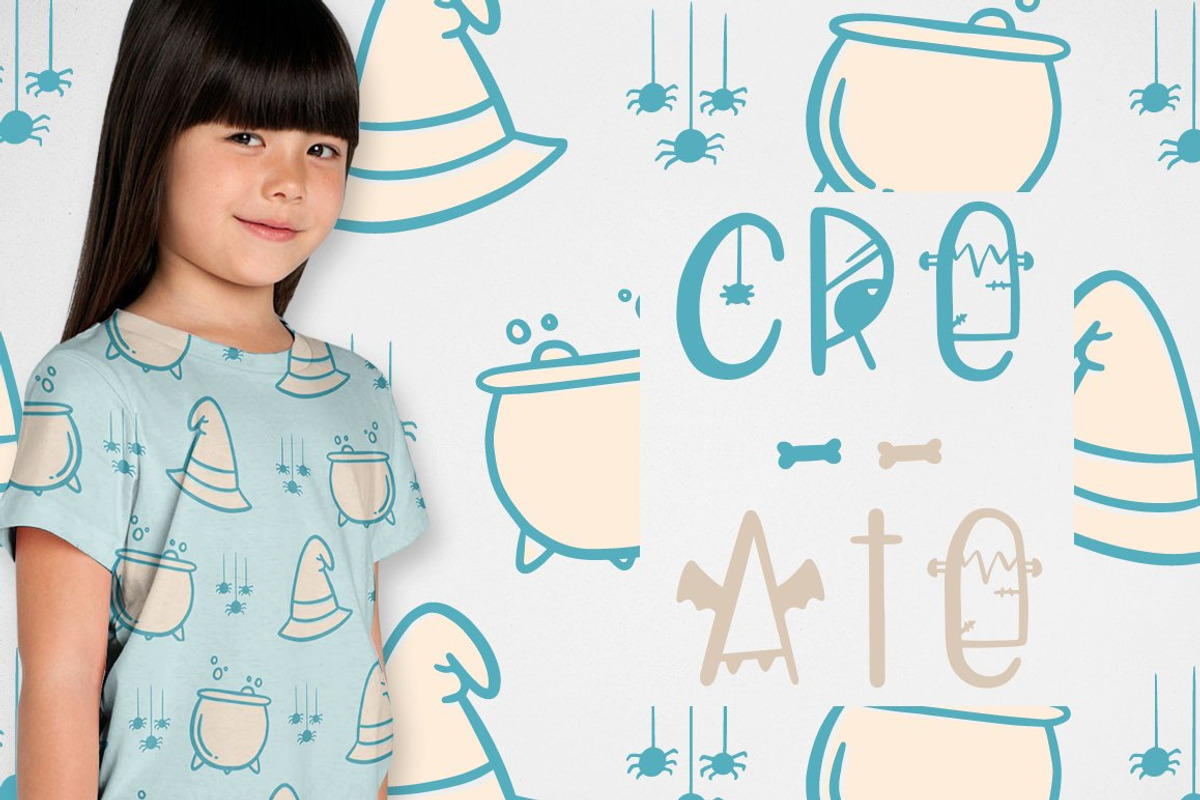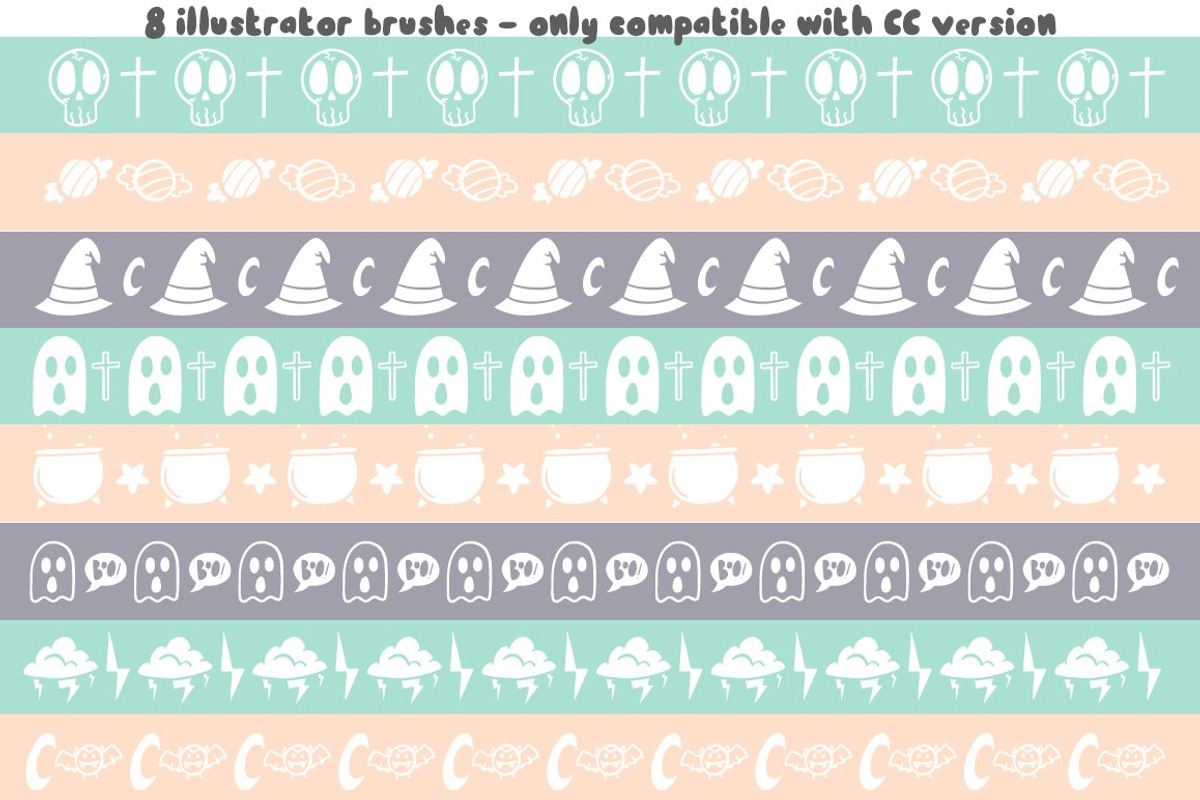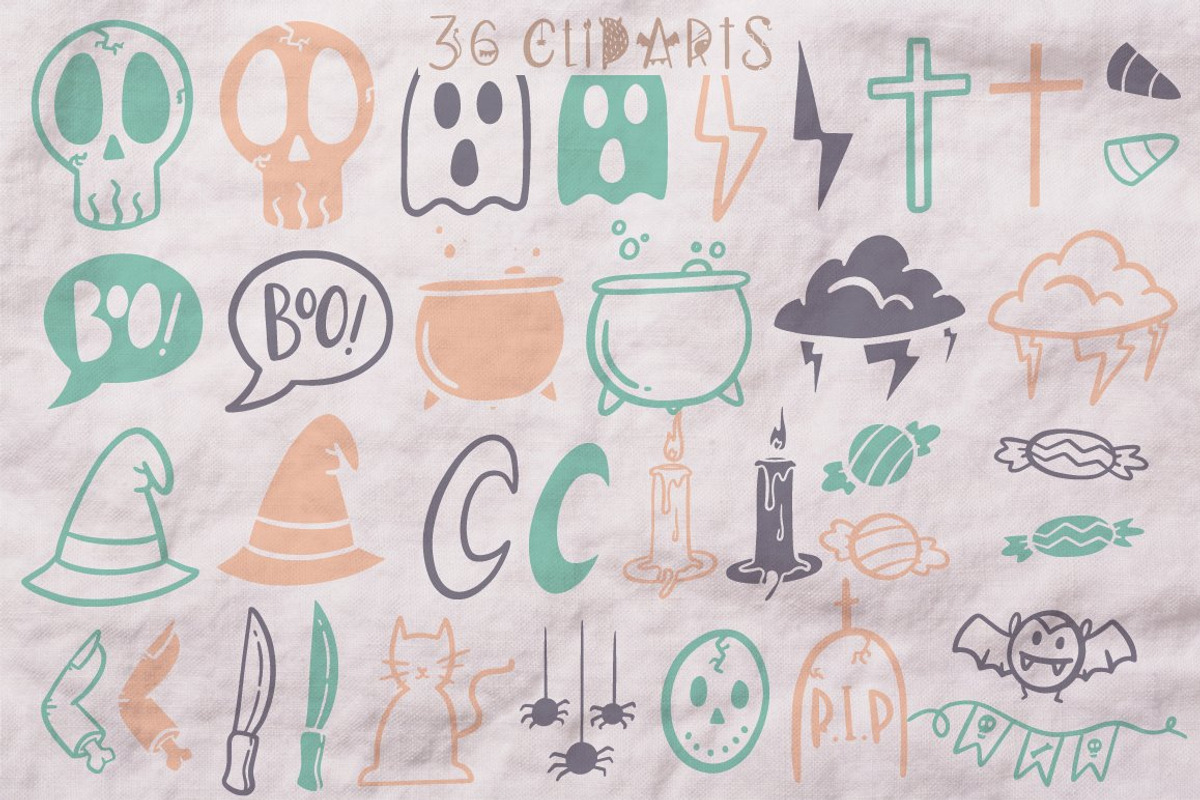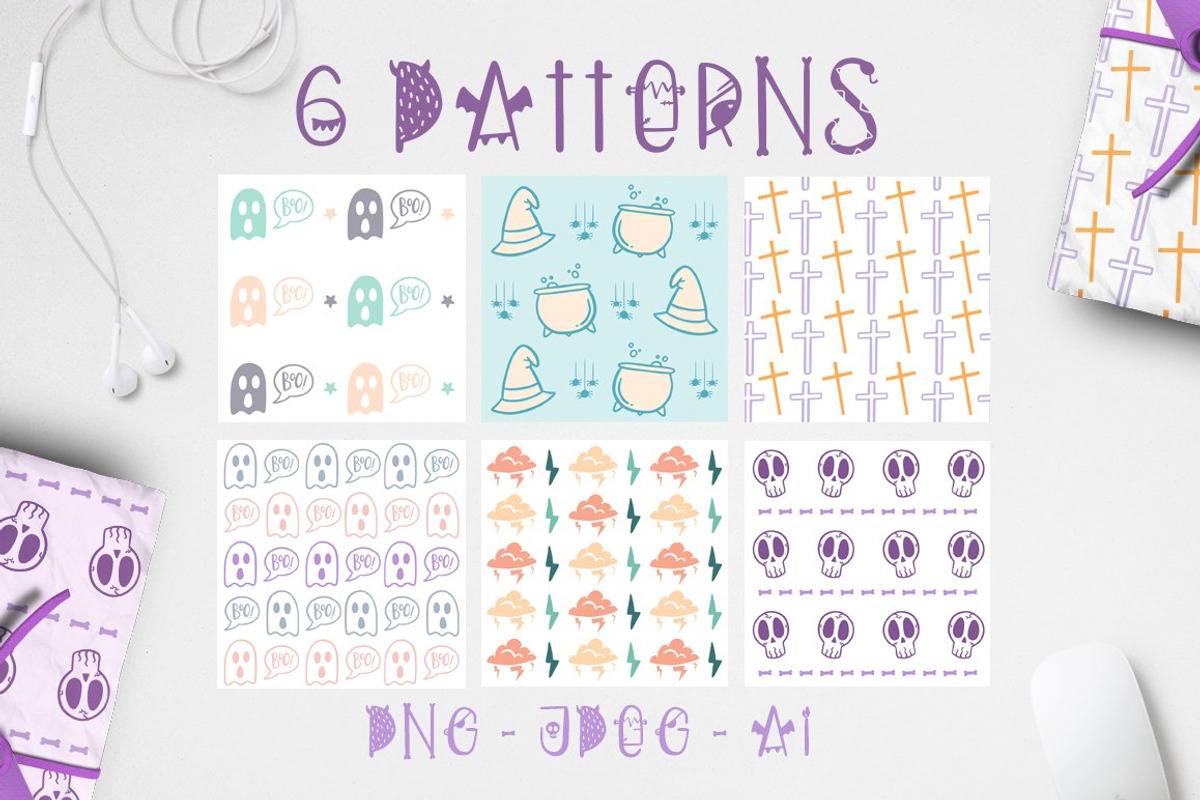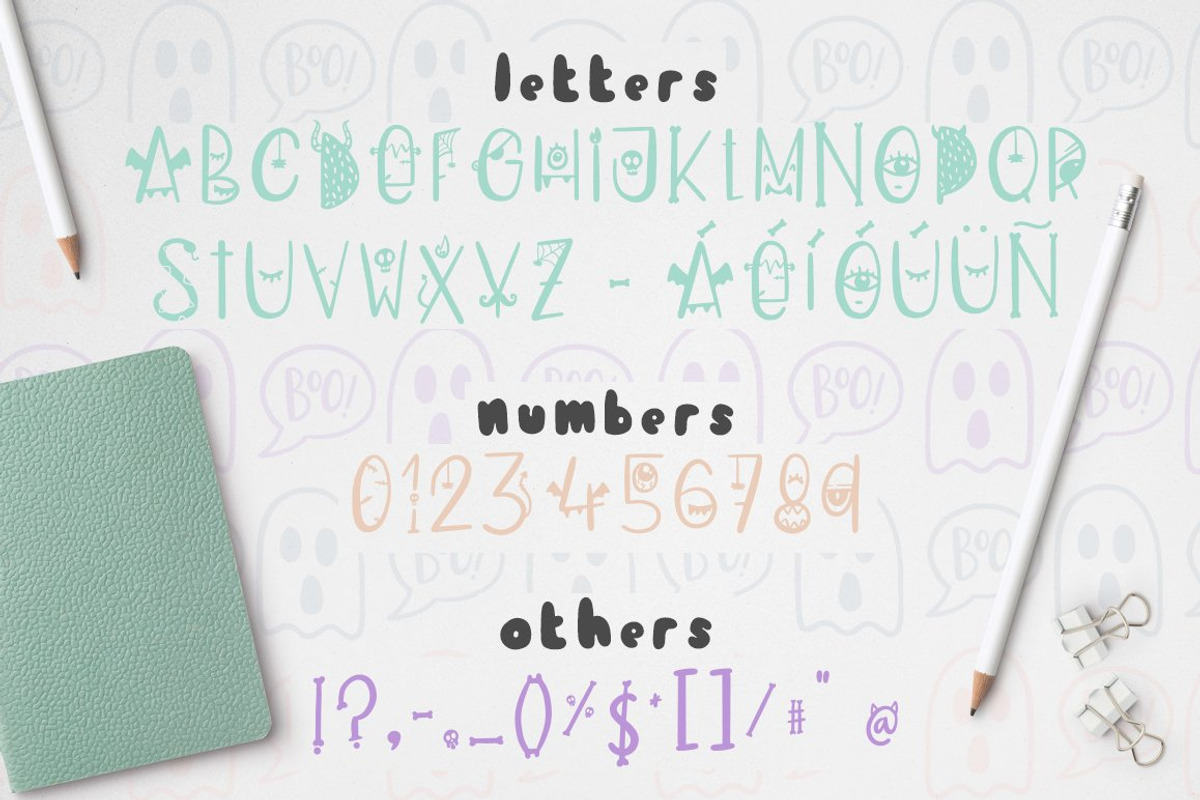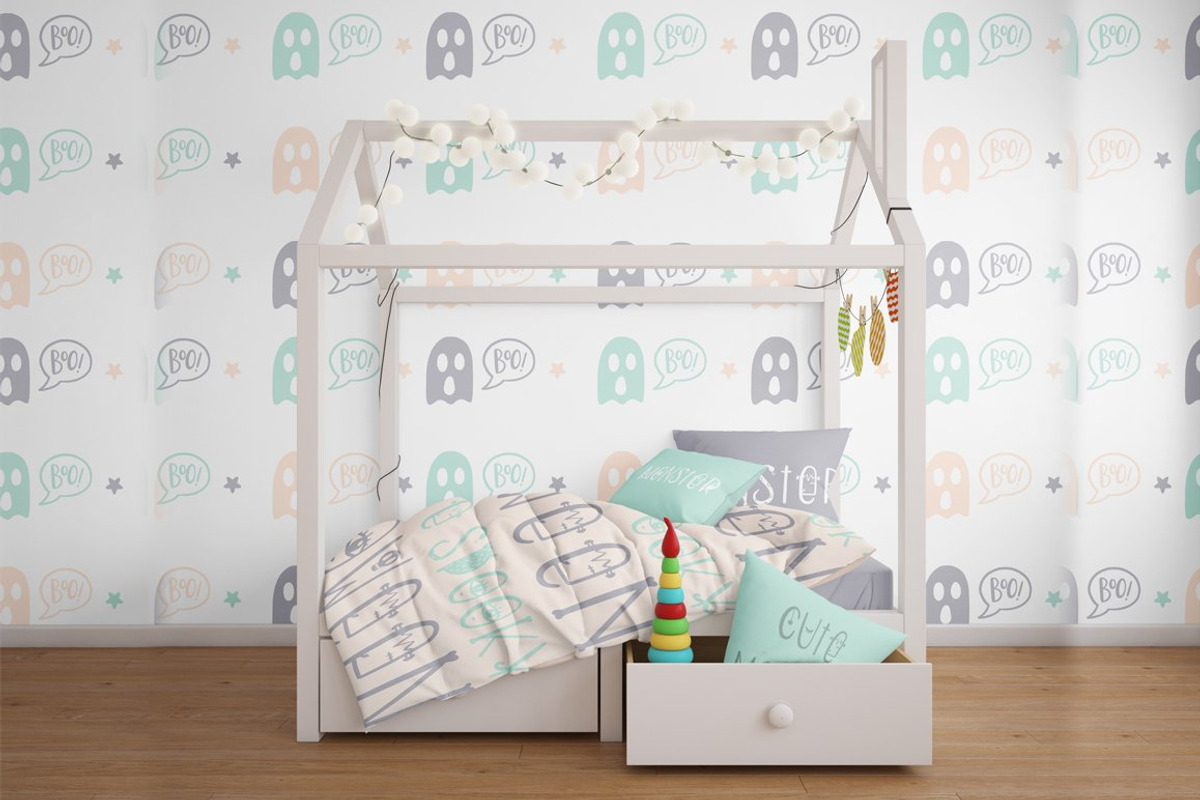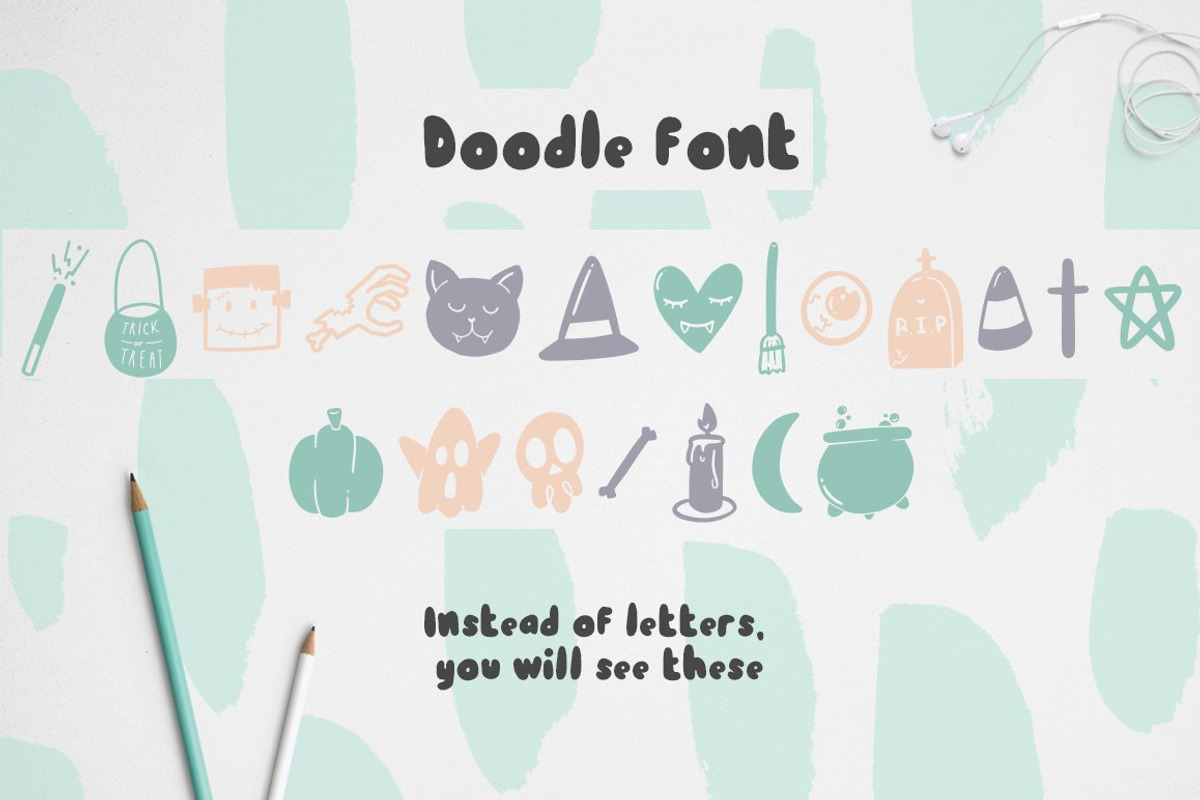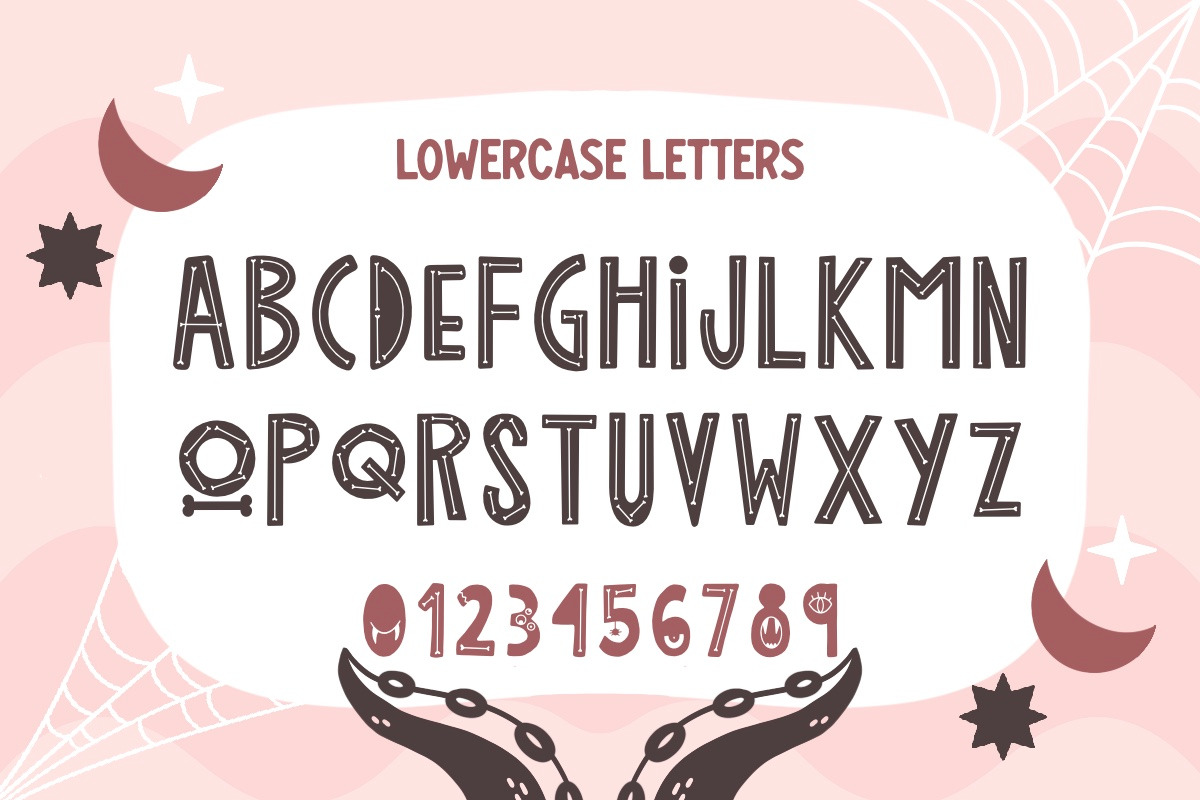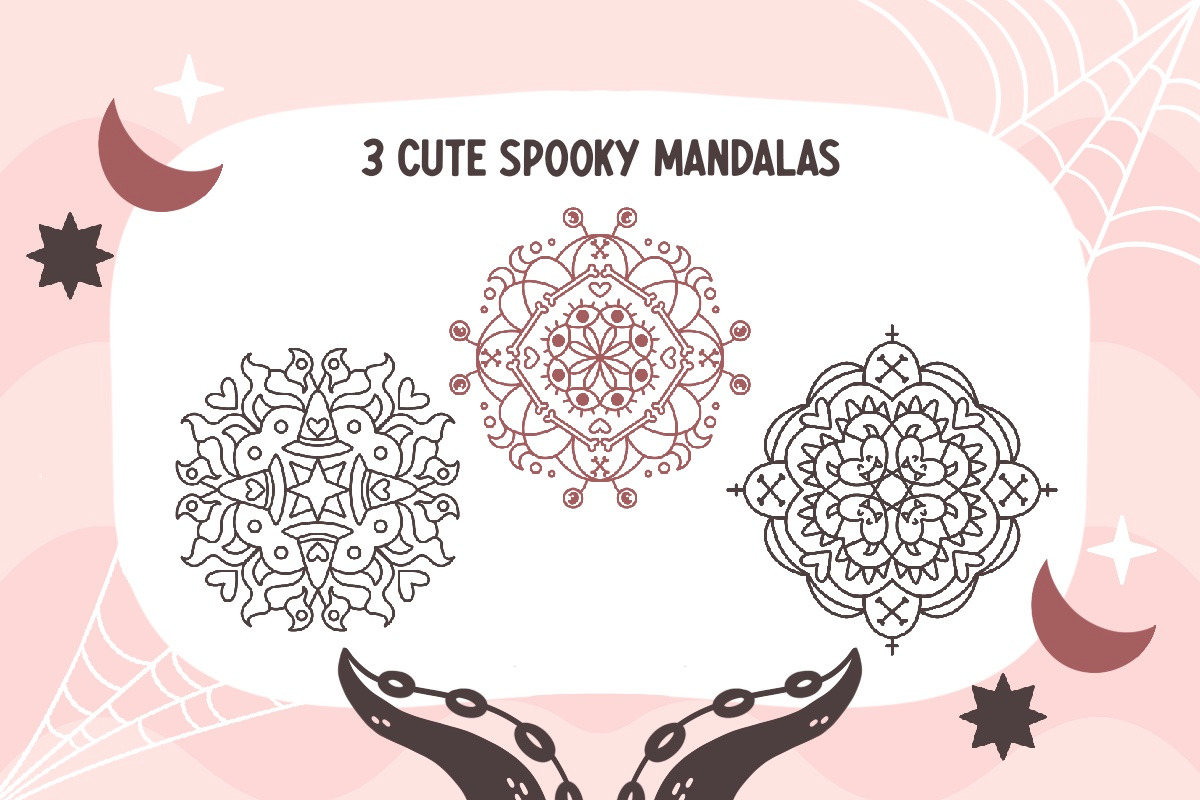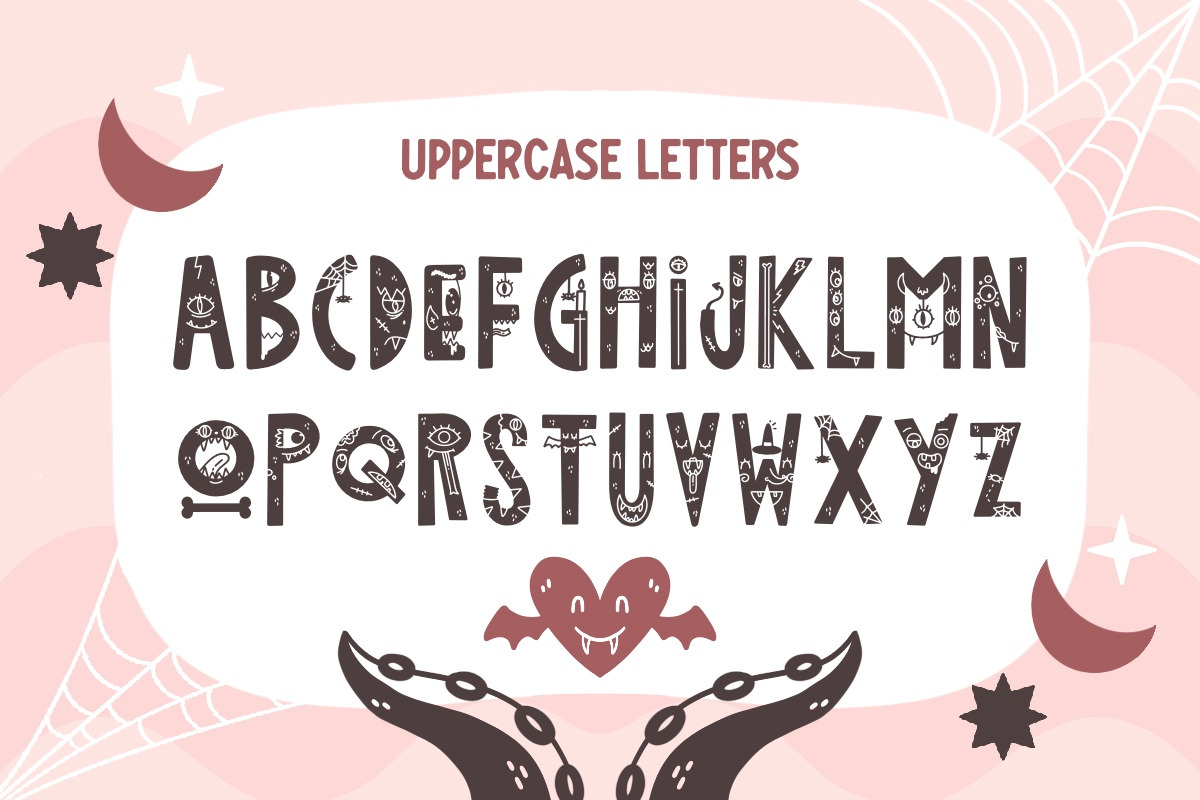
Halloween Party Pack!
This Halloween just got a lot cuter with this Halloween Party Pack that has the most playful fonts.
- Play with the uppercase and lowercase characters to get more versatility.